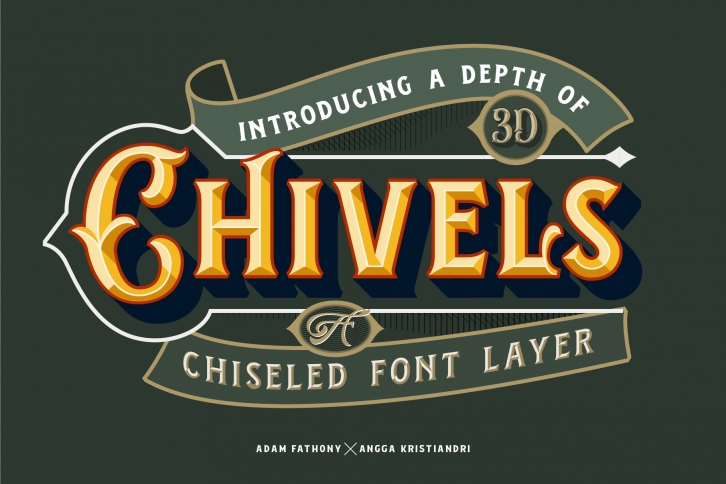
Chivels is a great font that was designed by AdamFathony. Imagine the amount of combinations you can create using this font! The archive is 13.80 MB and it was released on July 27, 2019. Chivels looks beautiful on wedding invitations, greeting cards, logos, posters, labels, t-shirt designs, logos, business cards and is perfect for use in ink or watercolor works, fashion, magazines, packaging and food menus, children's books and more!